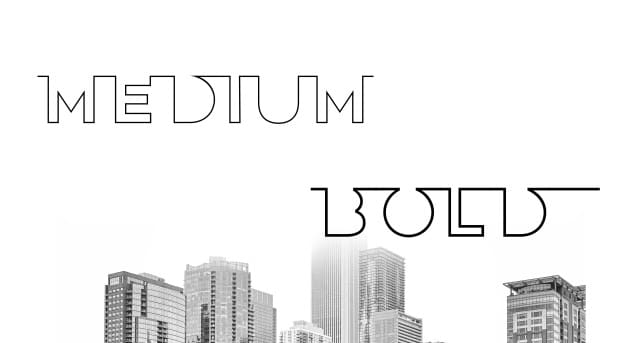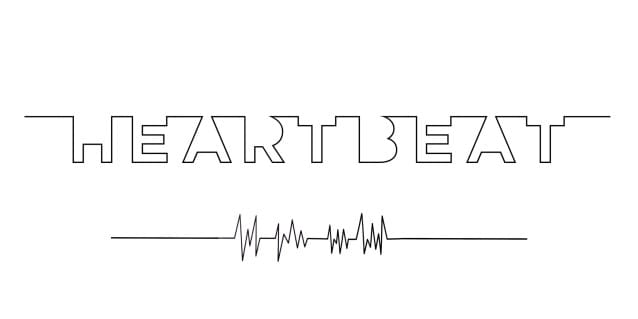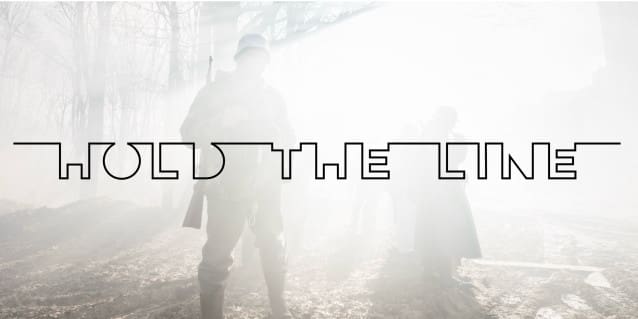
Hold The Line Font
Hold the Line Font is a unique, minimal font, designed in a way that it creates the illusion of a skyline. Simple yet unusual, it is guaranteed to make your projects “pop”. Due to its distinctive style, it is particularly ideal for logos, posters, covers, anything that needs to make an impact.
“Hold the Line” supports most Latin-derived languages as well as Greek and Cyrillic. Available in two weights.